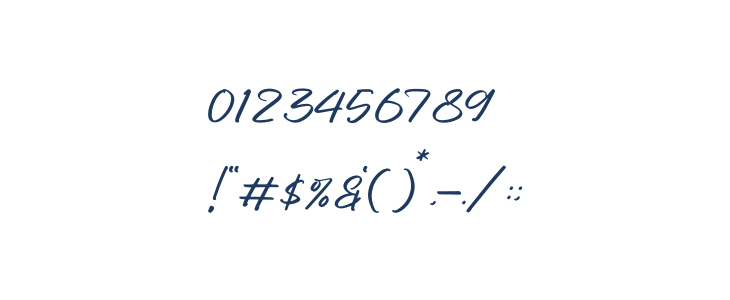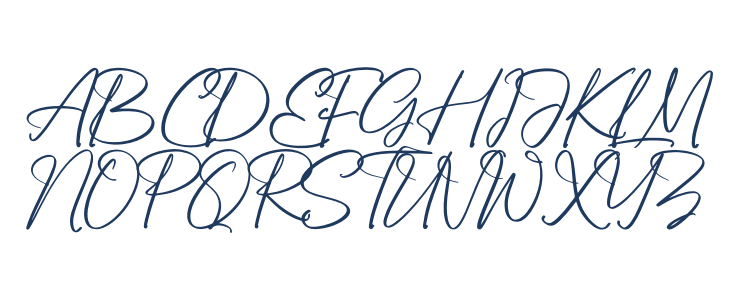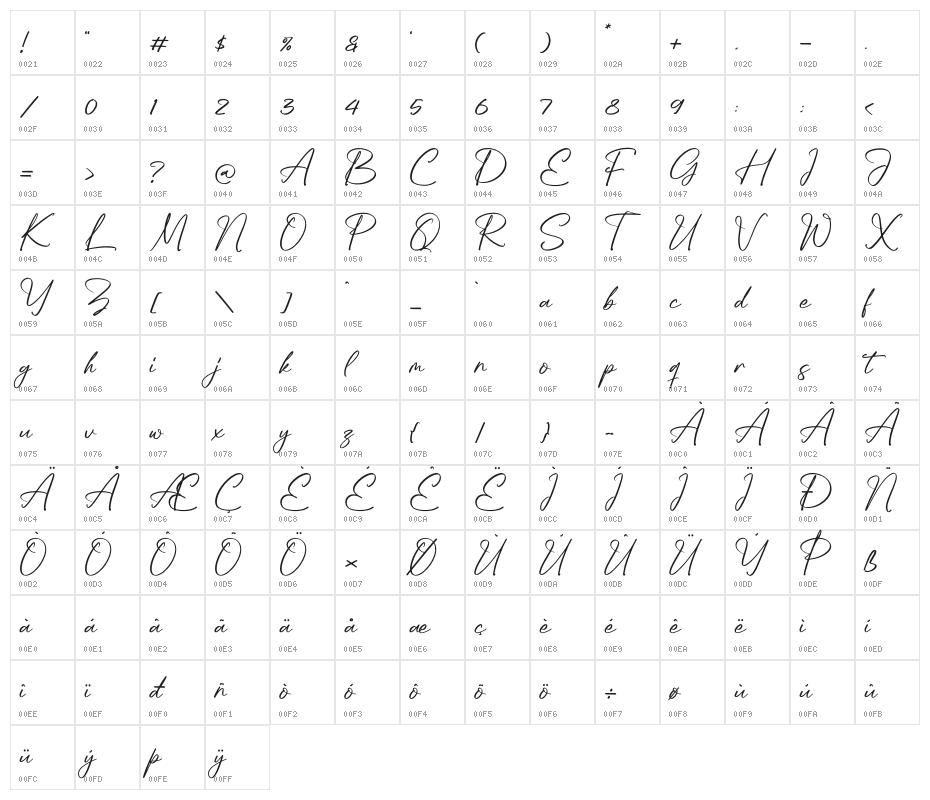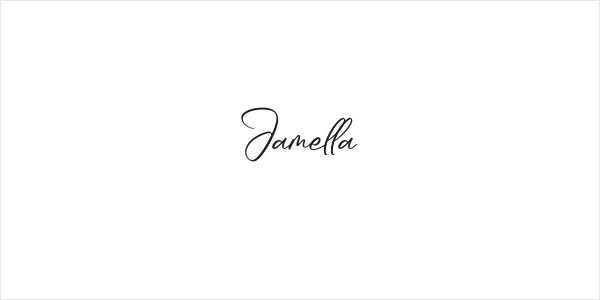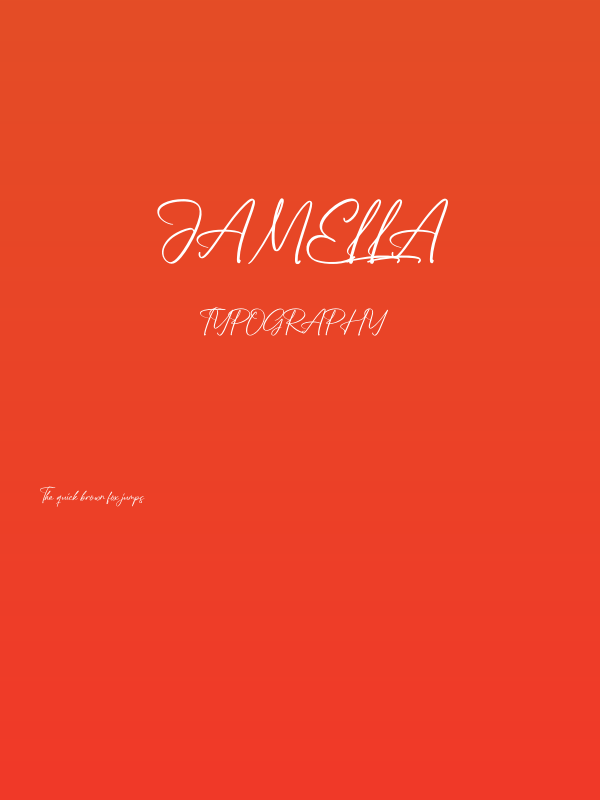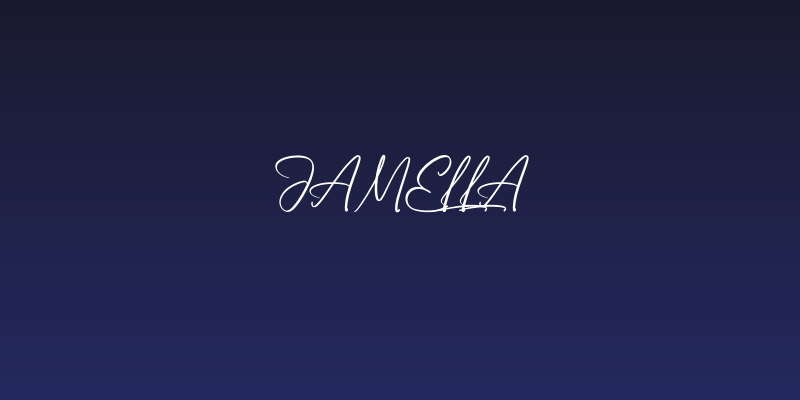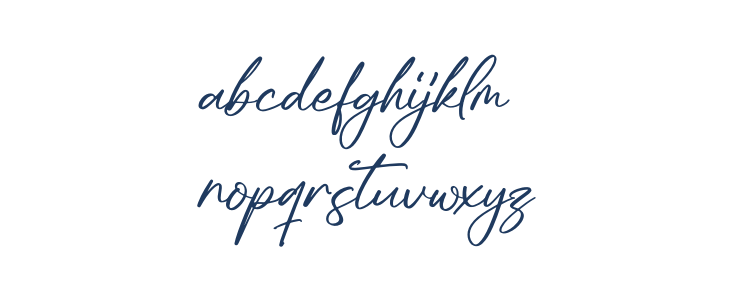
Jamella Font
Jamella Description
Elegant, flowing script font with a handwritten appearance, featuring high contrast between thick and thin strokes, long ascenders and descenders, and a natural, slightly irregular baseline.
| Overall Style | Decorative, Elegant, Handwritten |
| Use Case | Logos, Invitations, Headlines, Decorative text |
| Proposed Projects | Wedding invitations, greeting cards, personal branding, quotes, event posters. |